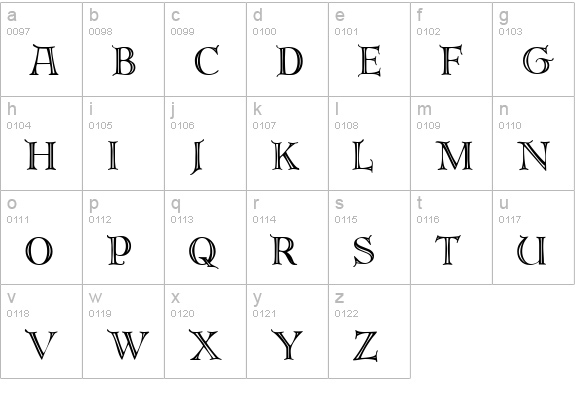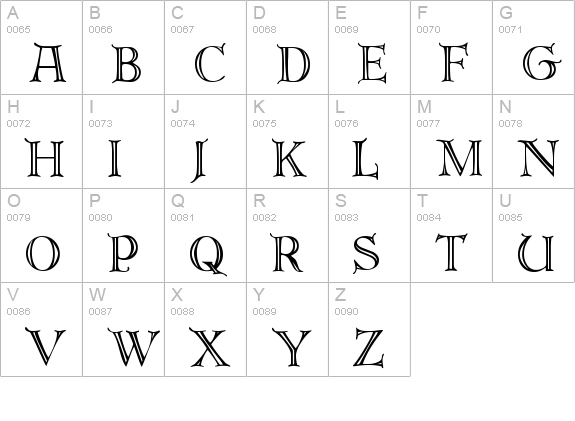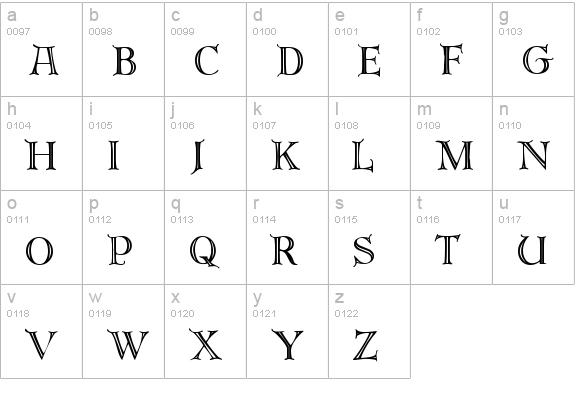
DeRoos Caps Font Details
DeRoos Caps is a stunning and elegant display font that exudes sophistication and style. With its clean lines and sharp edges, this font is perfect for creating eye-catching headlines, logos, and branding materials. The all-caps design gives it a modern and sleek aesthetic that will elevate any design project. What makes DeRoos Caps even more appealing is that it is available for free download at FontsMarket.com. This means that you can easily access this beautiful font and use it in your projects without any cost. Don't miss out on the opportunity to enhance your designs with the timeless elegance of DeRoos Caps. Download it today and add a touch of class to your work!